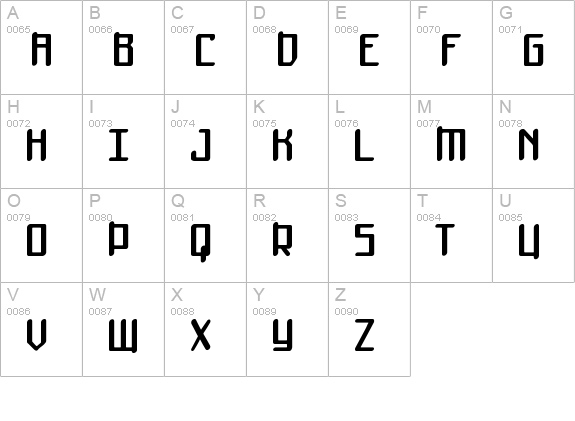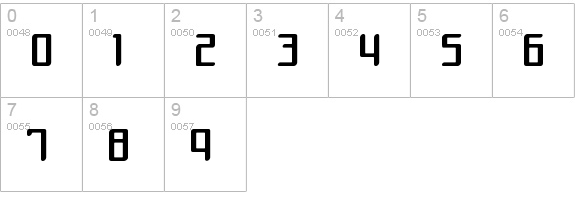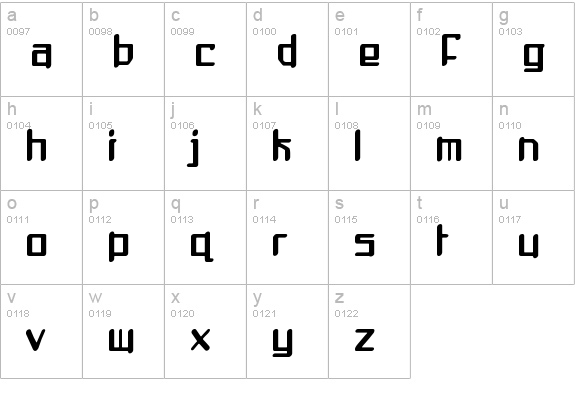
Mothership Font Details
Mothership font is a modern and stylish typeface that exudes elegance and sophistication. Its sleek lines and contemporary design make it a perfect choice for a wide range of projects, from branding to editorial design. With its unique character and versatility, Mothership font adds a touch of sophistication to any text or design. What's even better is that Mothership font is available for free download at FontsMarket.com. This means that you can easily access this stunning font and use it in your projects without any cost. Whether you're a designer looking to elevate your work or a content creator searching for the perfect font, Mothership font is the ideal choice. Download it today and enhance your designs with this beautiful and free typeface.